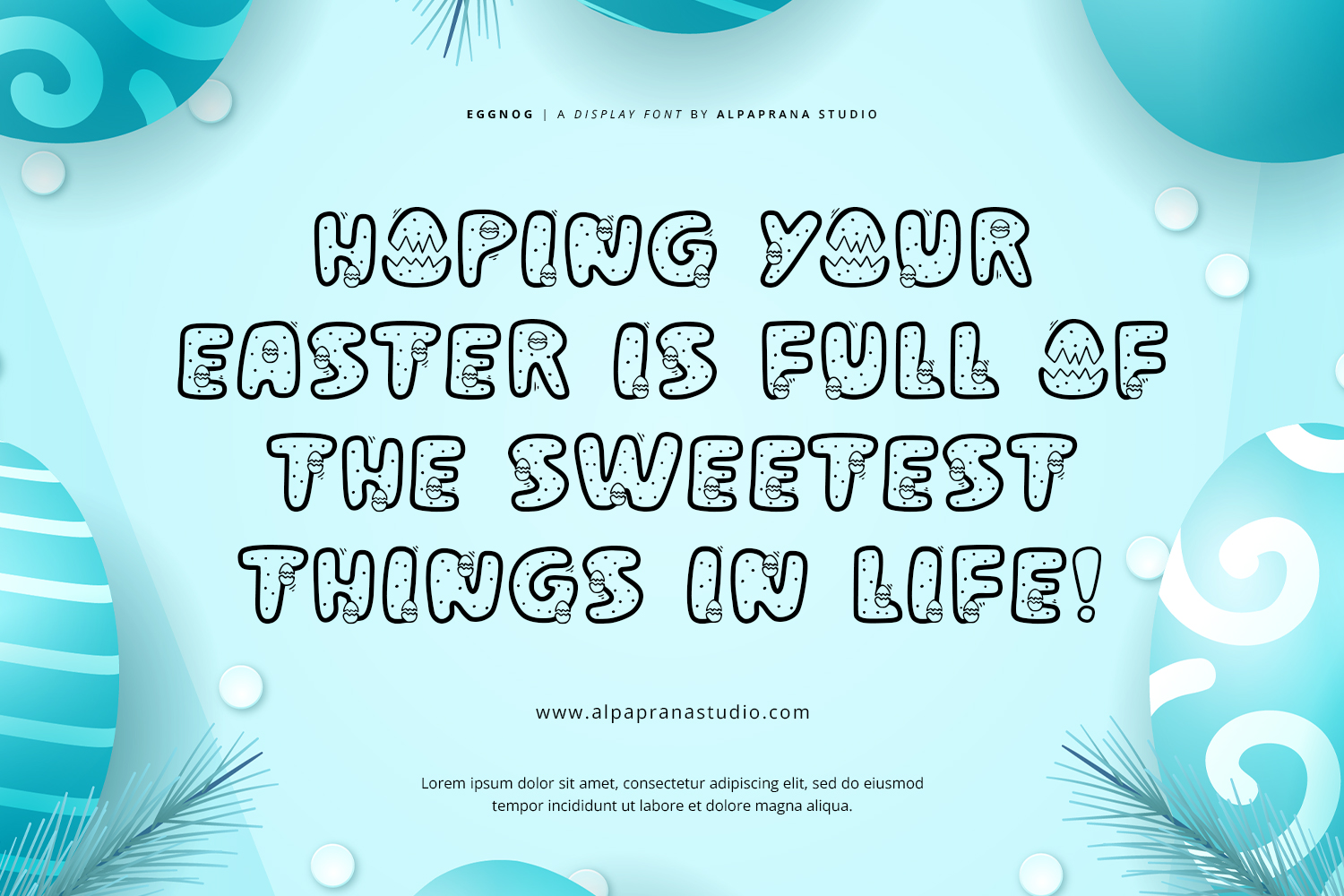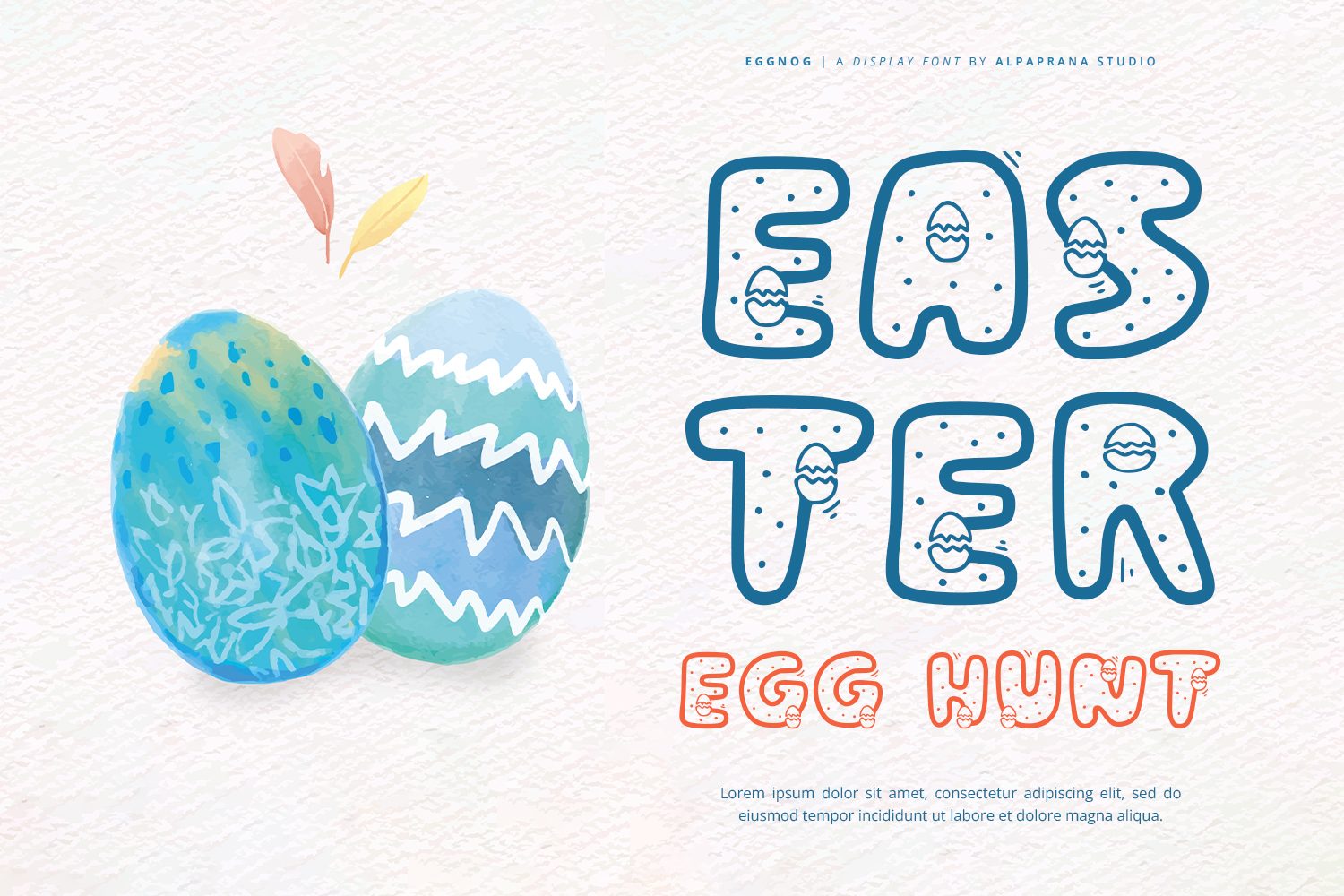
Eggnog Free Font
Eggnog Free Font is a display font with cute and playful feels. It will be perfectly used for branding, logo design, lettering, logotype, clothing, poster, magazine, packaging, posters, shopping bags, t-shirts, book covers, photography, and special events.